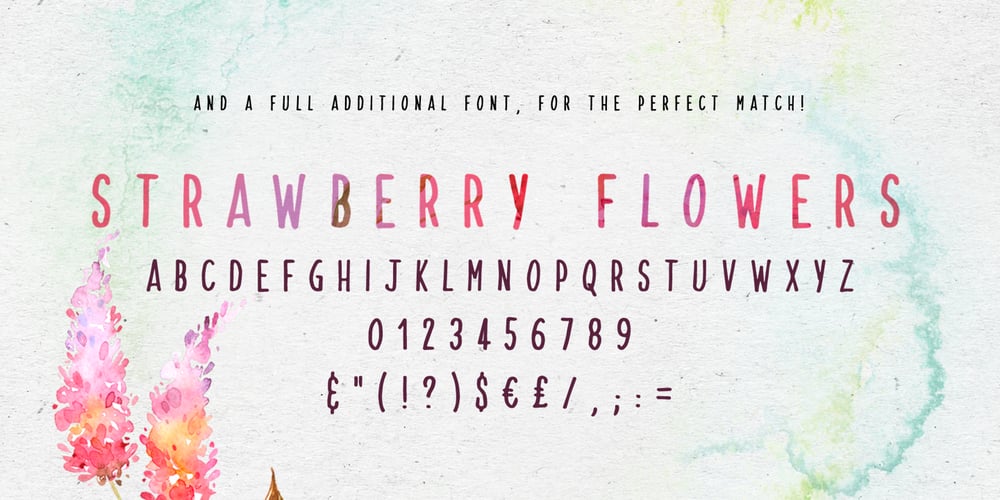
Strawberry Blossom Font Family was designed by Clément Nicolle and published by StereoType Fonts. Strawberry Blossom contains 2 styles and family package options. Introducing Strawberry Blossom, a smooth script font, made for your best creative typographic designs! Try it for any of your DIY projects, cards, posters, packaging, web design, photos, scrapbooking, or anything hidden in your creative mind! With this soft and rounded style, it comes with plenty of alternates characters and ligatures so that you could create a unique and personal style to your text. And you’ll also find a cool sans serif handwritten font to match perfectly!